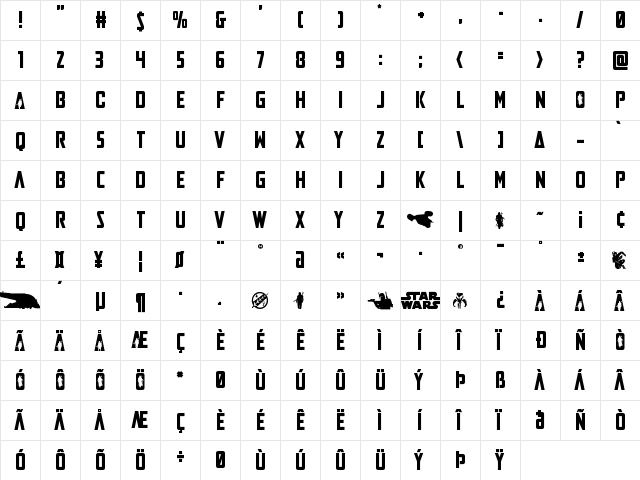
Mandalore Regular
Design Context for Mandalore Typeface
Mandalore is a composed and adaptable typeface that performs quietly and consistently across a wide range of design contexts.